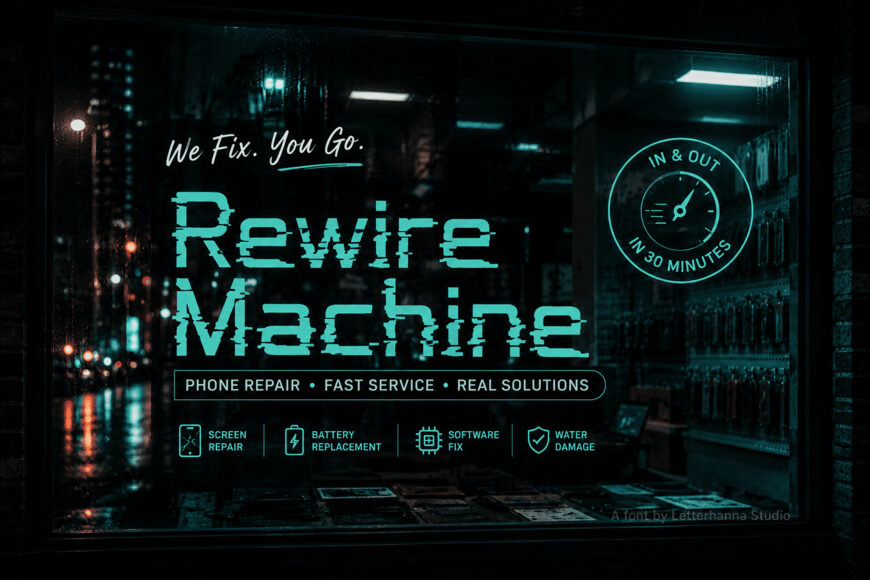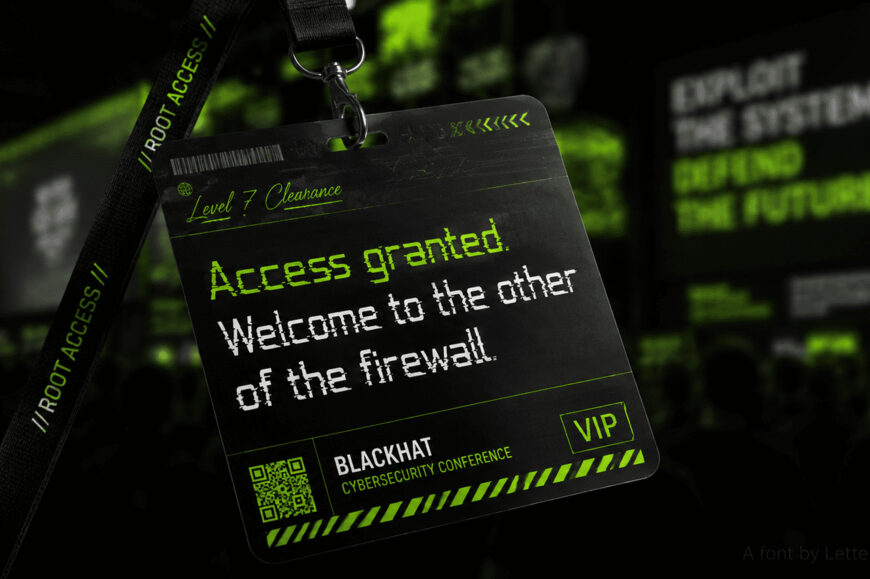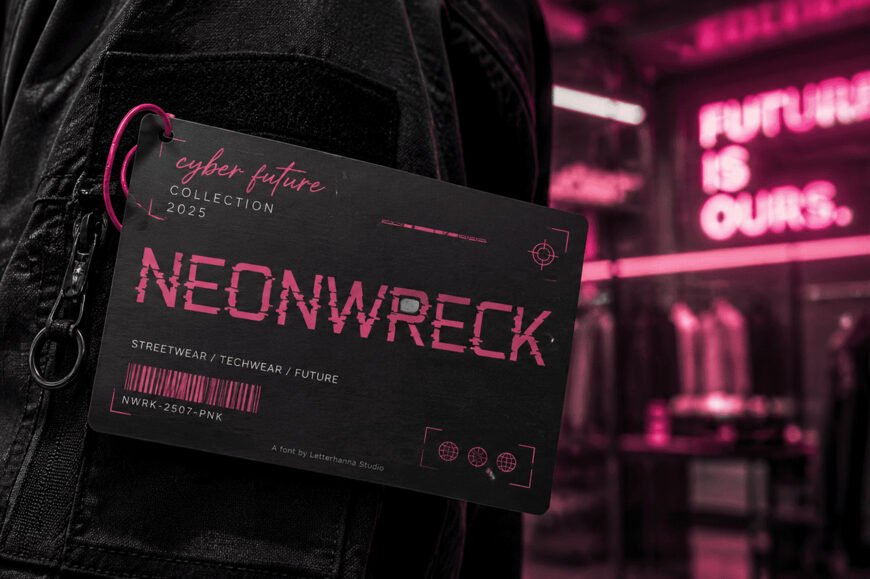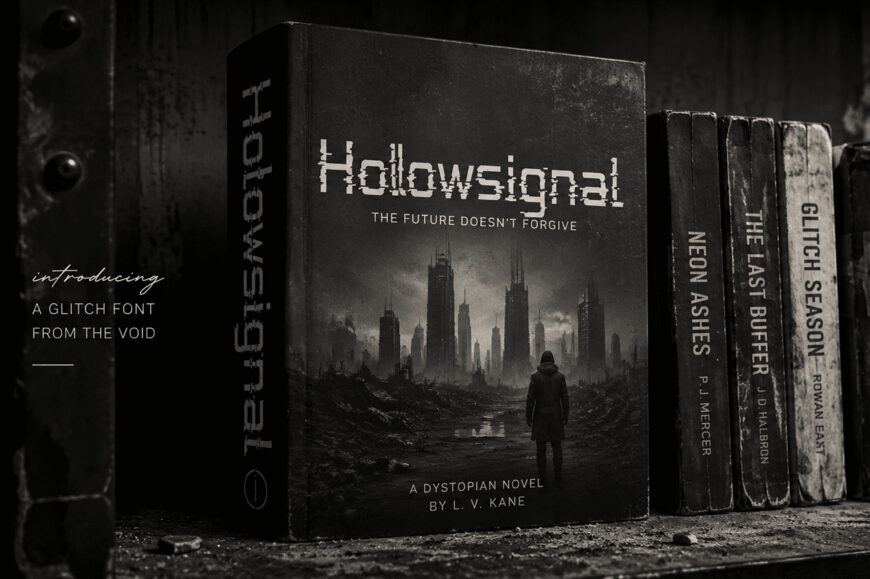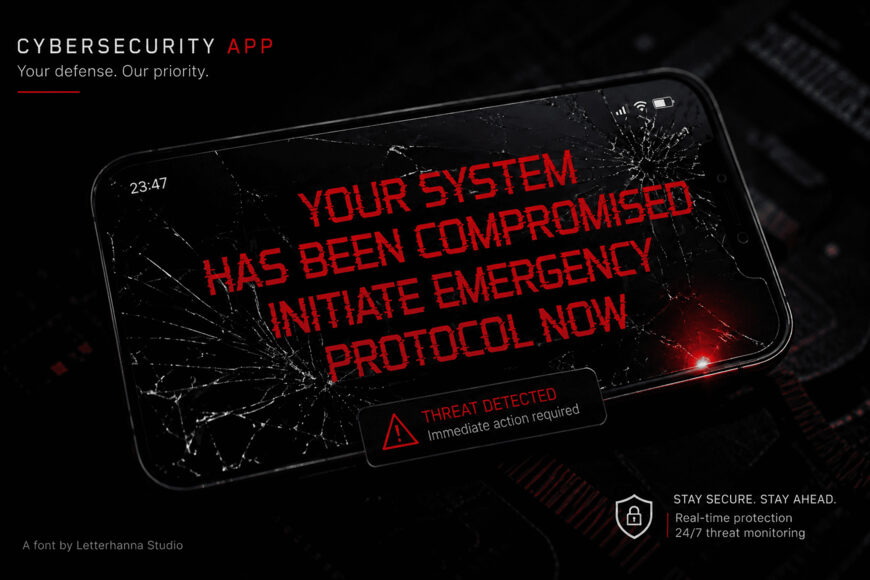
Vollazee Font
Finding a typeface that balances distinct personality with functional legibility is a constant design challenge. Enter Vollazee, a glitch font bridging the gap between raw, distressed grit and precise, futuristic design.
Featuring geometric letterforms accented by deliberate scan-line cuts, Vollazee delivers a corrupted-data aesthetic while maintaining sharp readability. Instead of forcing you to combine multiple fonts for edge and clarity, Vollazee unifies both in a single file—ideal for streetwear, cybersecurity branding, album art, and UI.